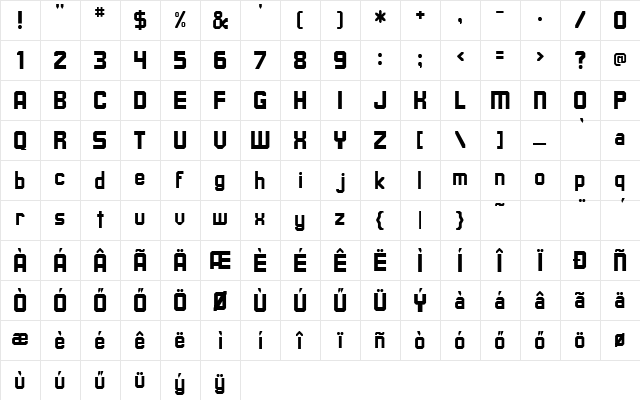
H_Upsilon Regular Free Font
H_Upsilon Regular
Design Context for H_Upsilon
H_Upsilon is a composed and adaptable typeface that performs quietly and consistently across a wide range of design contexts.